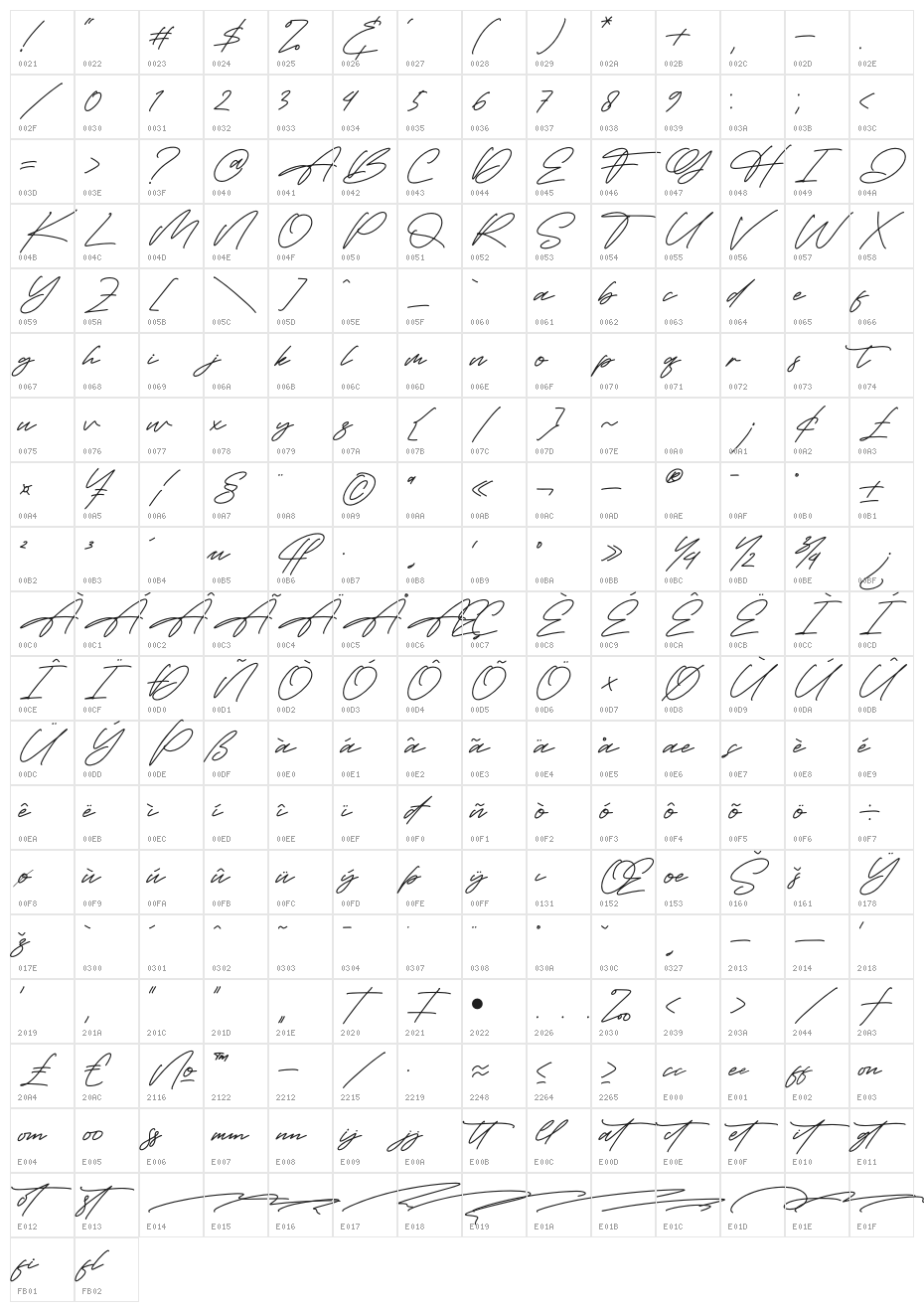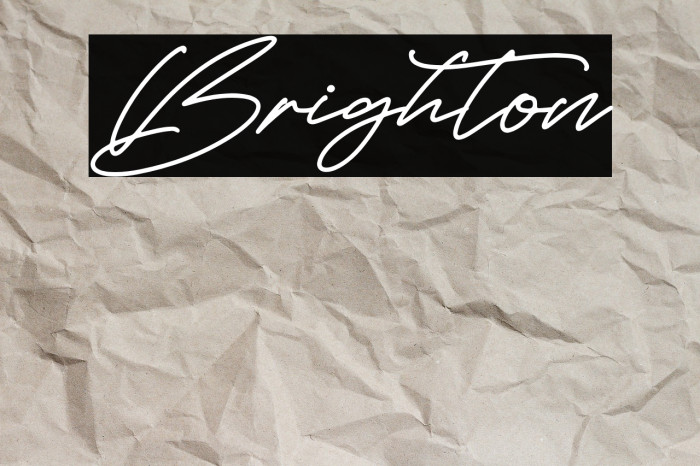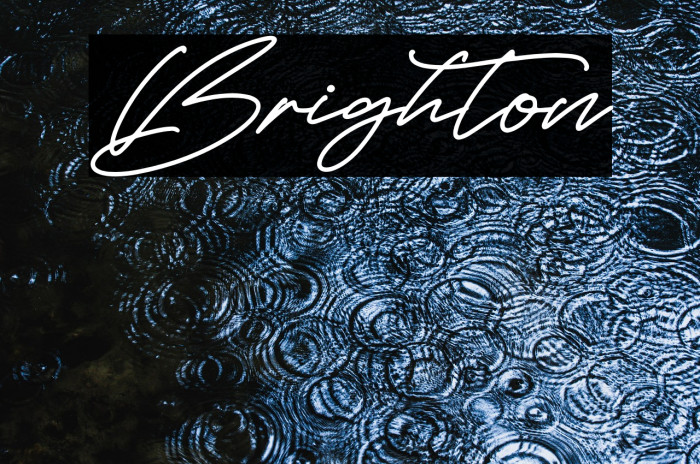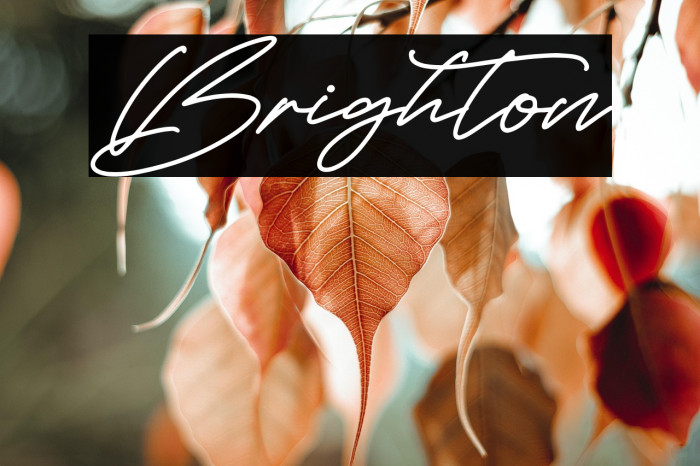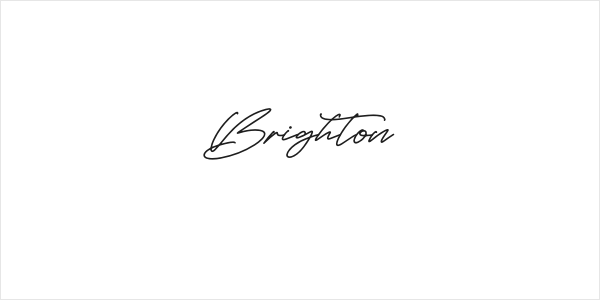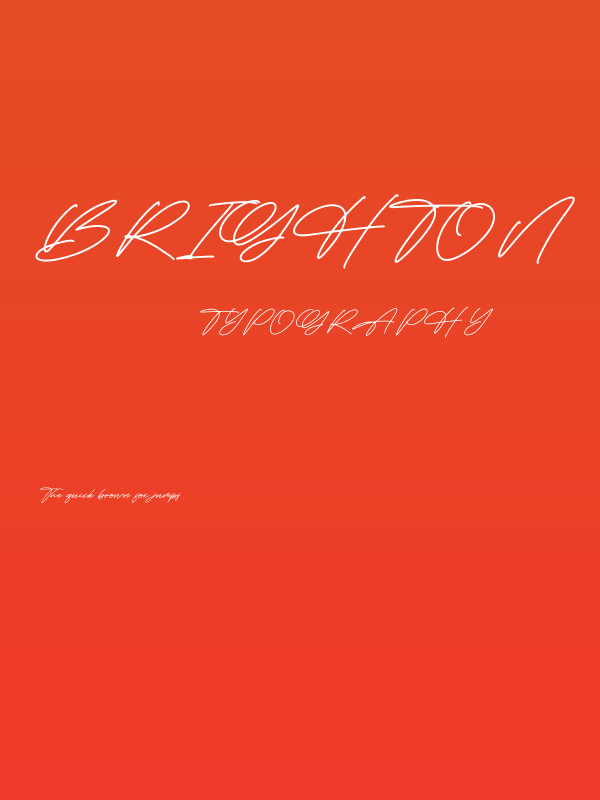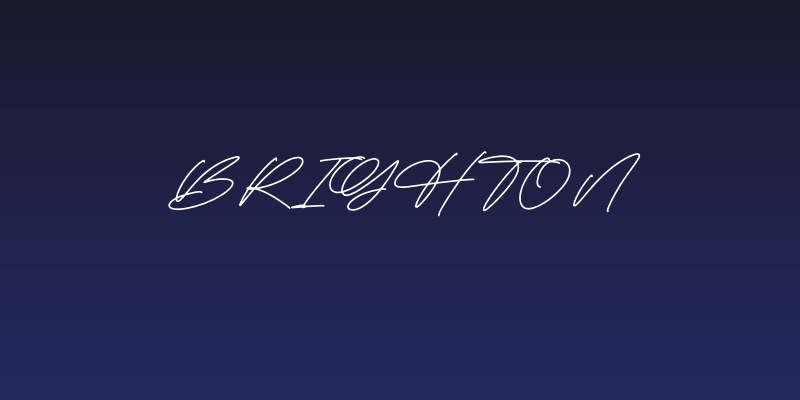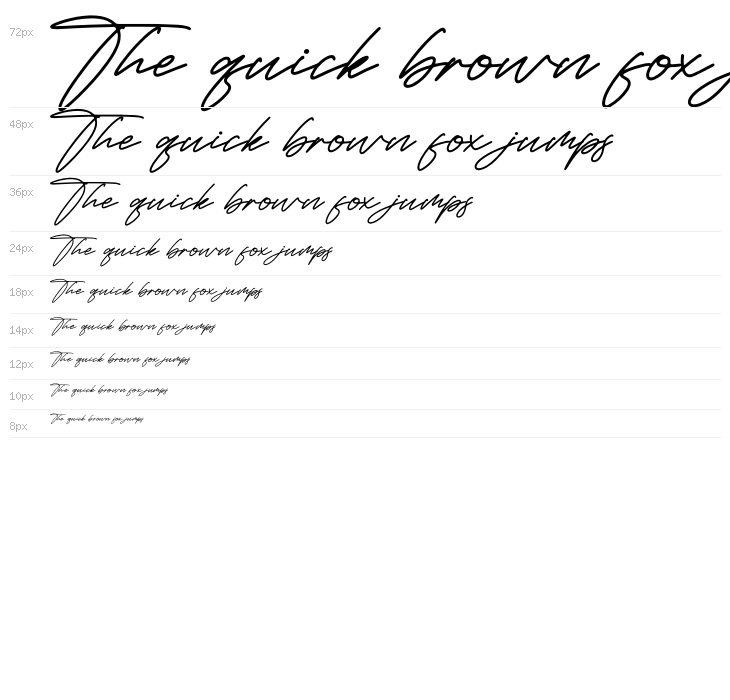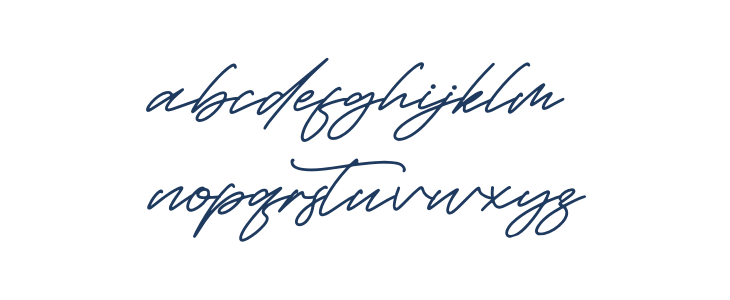
Brighton Font
Brighton Description
This elegant script font exudes a sense of sophistication and fluidity, characterized by its smooth, flowing lines and cursive style. The uppercase letters are slightly more elaborate, with gentle curves and loops that add a touch of flair. The lowercase letters maintain a consistent flow, enhancing readability while retaining an artistic touch. Numbers and special characters are crafted with the same attention to detail, ensuring a cohesive look across all text elements. The font's overall appearance is both graceful and dynamic, making it suitable for a variety of creative applications.
| Proposed Projects | Ideal for wedding invitations, elegant branding, personal signatures, and artistic projects. |